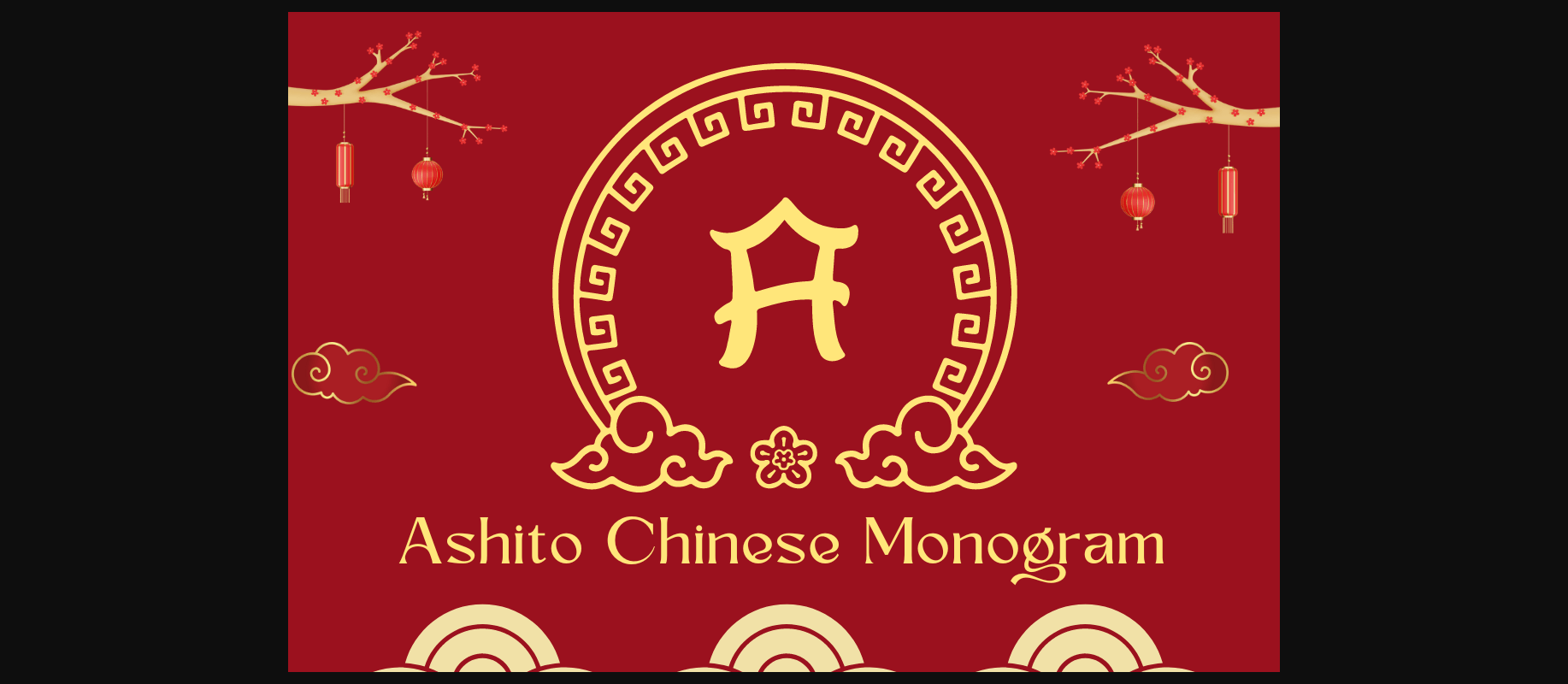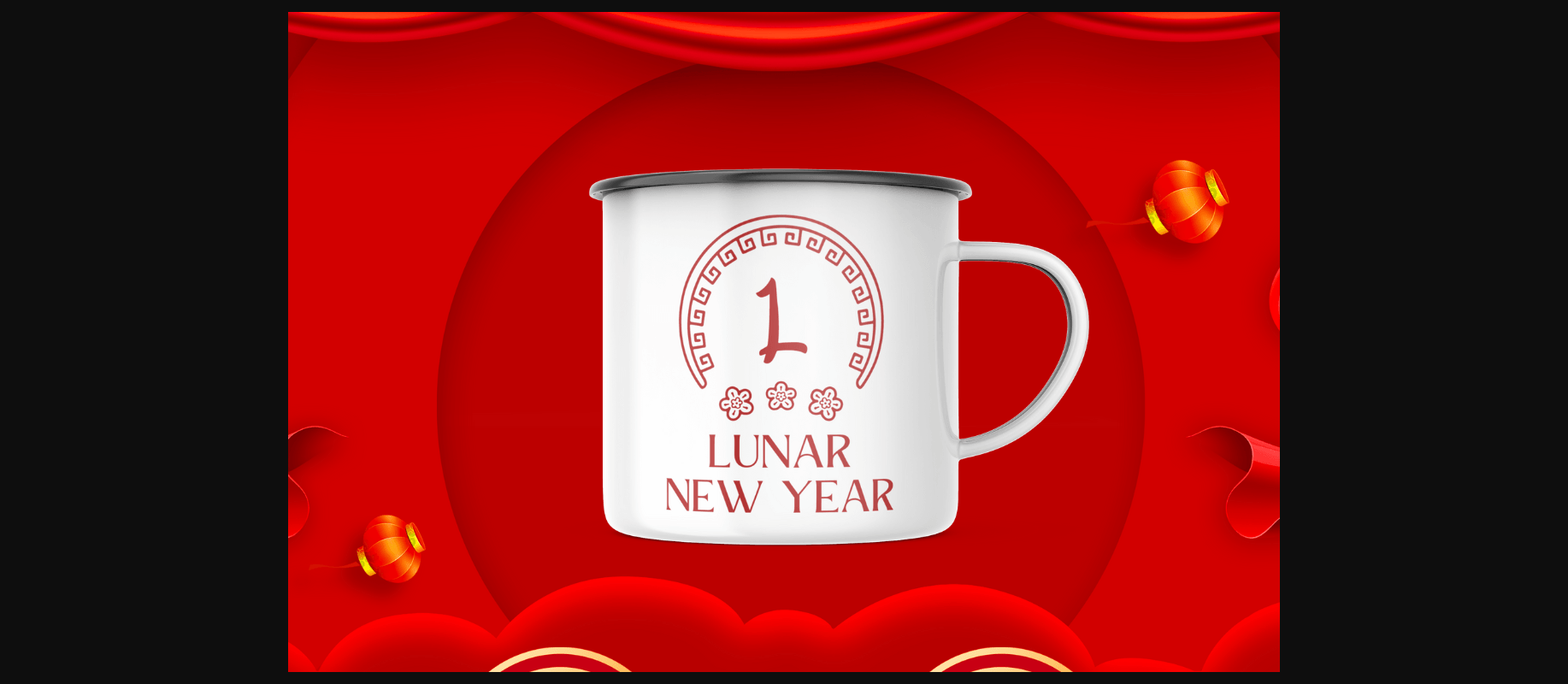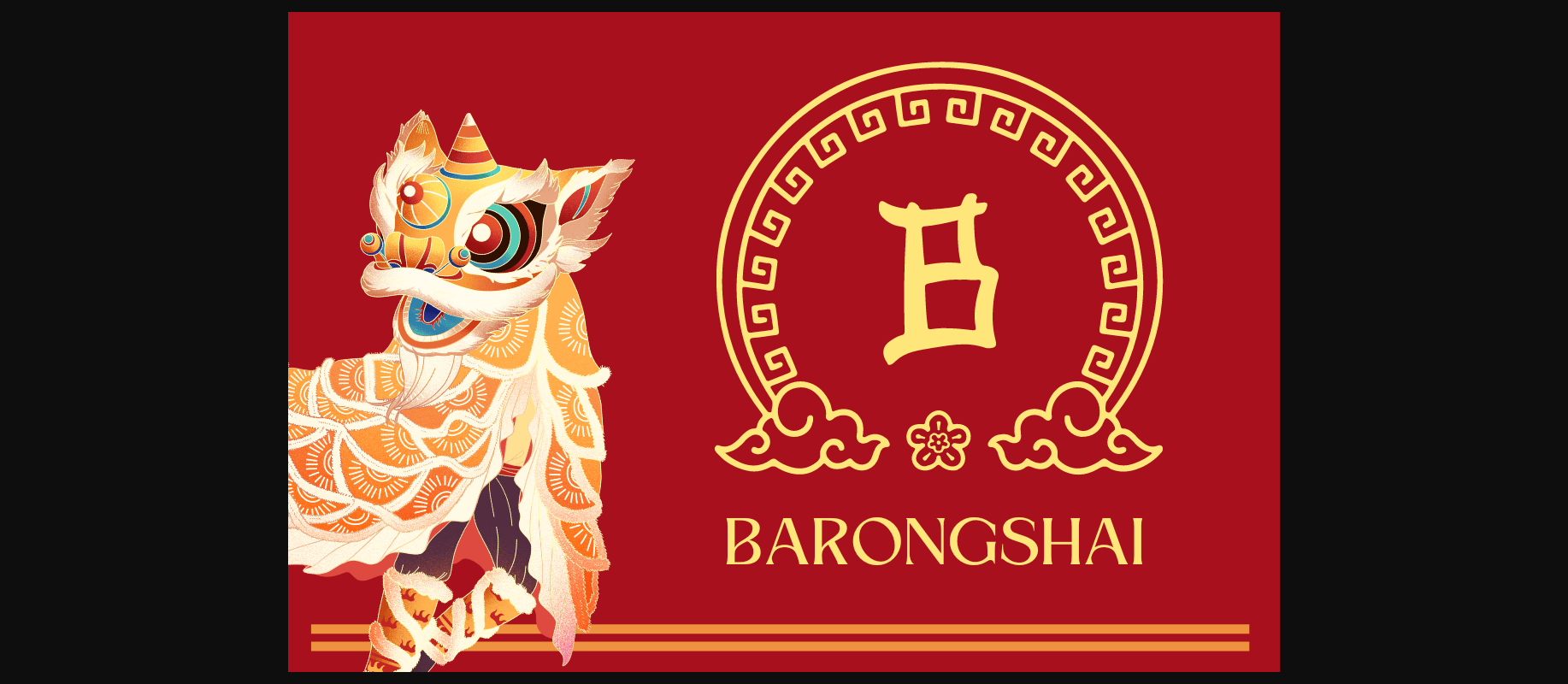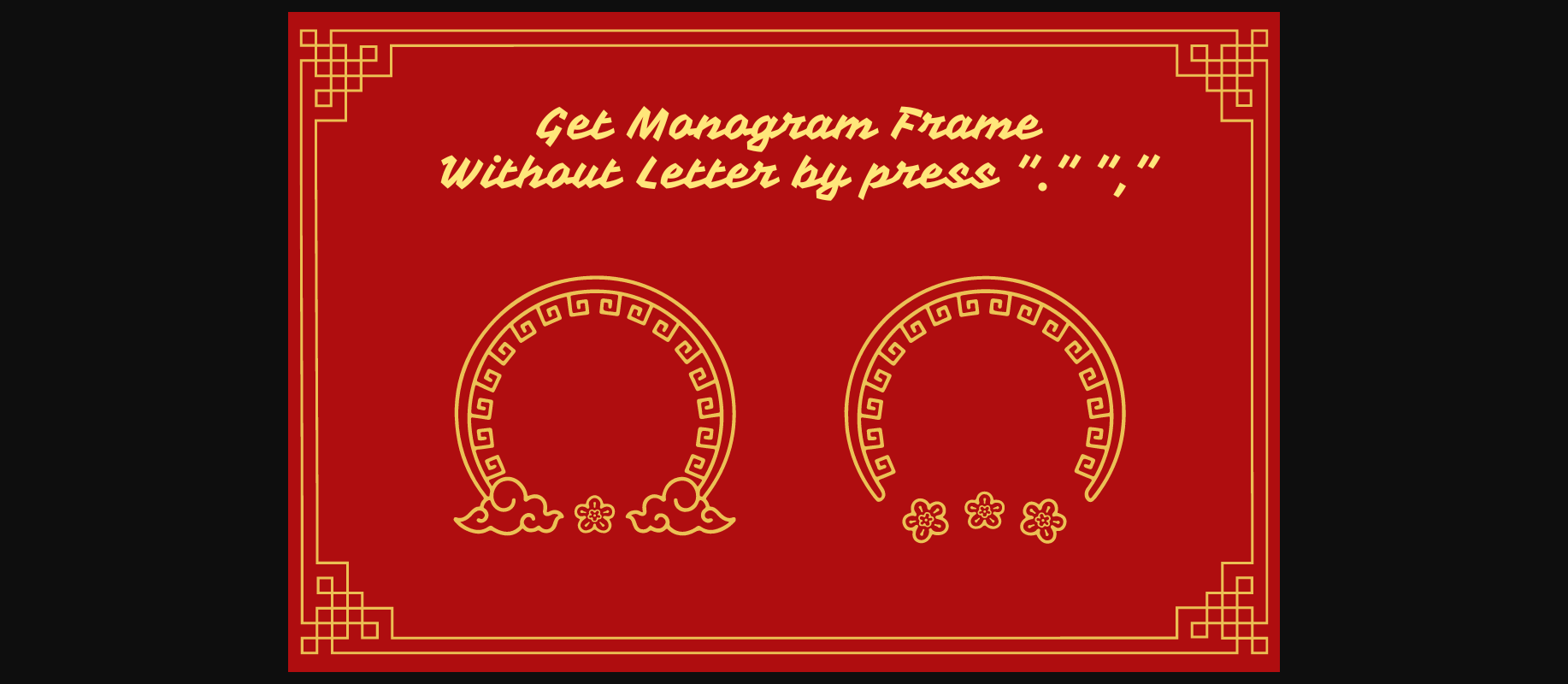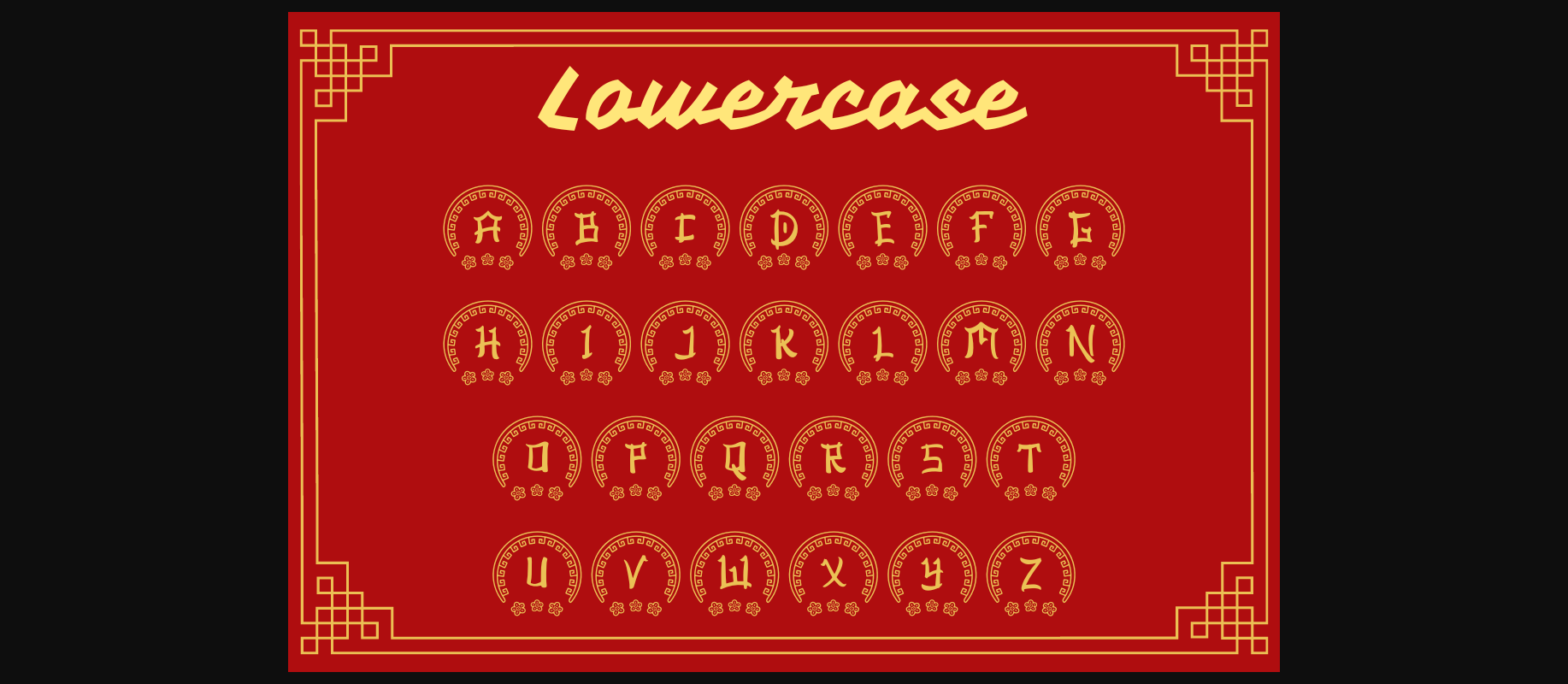
About Ashito Chinese Monogram Font
Ashito Chinese Monogram is a Chinese ornament decorative font.
This font can be used to make Chinese new year themed gifts, including textiles, and gifts for kids, and is a perfect gift for a new homeowner, a Chinese family, or anyone with a love of monograms.
Comes in 2 styles.
Just simply change between uppercase and lowercase to see the different styles!
This font can be used to make Chinese new year themed gifts, including textiles, and gifts for kids, and is a perfect gift for a new homeowner, a Chinese family, or anyone with a love of monograms.
Comes in 2 styles.
Just simply change between uppercase and lowercase to see the different styles!